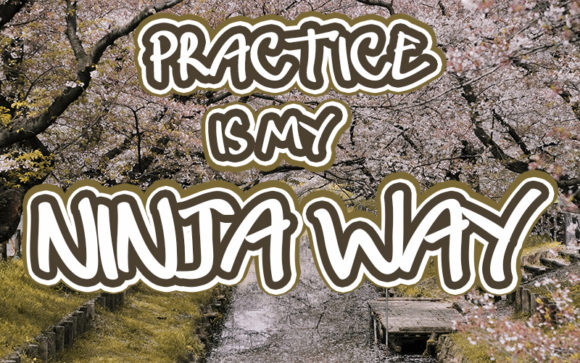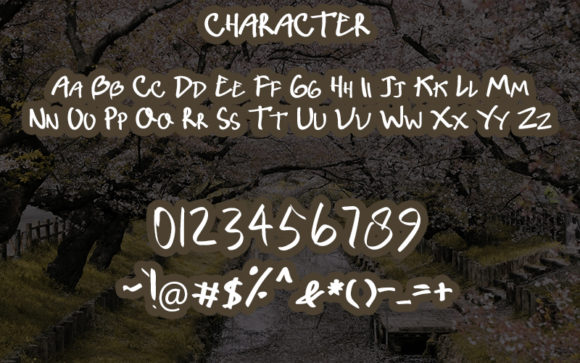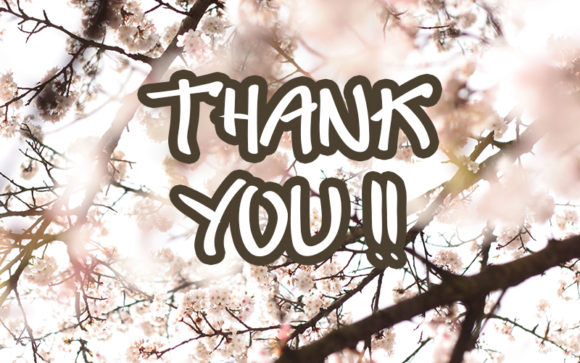
Introduction to Nin Kid Font
Have you ever stared at a blank page, trying to bring a creative project to life, but struggling to find the perfect font to give it that extra oomph? You’re not alone! As designers, we’re constantly on the lookout for that special something that sets our work apart from the rest.
Enter the Nin Kid Font – a delightful, handwritten font that embodies the essence of fun, quirkiness, and authenticity. With its playful strokes and charming character, this enchanting font is sure to turn any creative idea into a true standout. Whether you’re working on a high-quality design project or simply need a reliable design resource, the Nin Kid Font is a valuable addition to your toolkit.
Key Features of Nin Kid Font
- High-quality design resource ideal for creative projects and personal use.
- Nin Kid Font is designed to be highly legible and visually appealing, making it perfect for titles, headings, and body text.
- Unique, hand-drawn style with a mix of bold and delicate lines, adding a touch of personality to any design project.
Honest Review: Nin Kid Font
What works well: ✨ The Nin Kid Font is incredibly versatile, making it perfect for a wide range of creative projects. The design is modern, yet playful, and the transparent background gives me endless possibilities for layering and customization. I’ve used it for logos, social media graphics, and even a few print designs.
Overall, I’m thoroughly impressed with the Nin Kid Font. It’s a high-quality design resource that’s perfect for designers of all levels. With its modern aesthetic and transparent background, it’s a great addition to any design arsenal.
- Modern, yet playful design
Nin Kid Font
Introduction to Nin Kid Font
Nin Kid Font is a high-quality design resource ideal for creative projects. This free download offers a unique and creative touch to any design, making it perfect for designers and artists.
Nin Kid Font is commonly used for: social media graphics, presentations, posters, and digital marketing materials.
Tips for Getting the Most Out of Nin Kid Font
To get the most out of Nin Kid Font, use it in conjunction with a transparent background to create a clean and modern design, and experiment with different font sizes and styles to add visual interest.